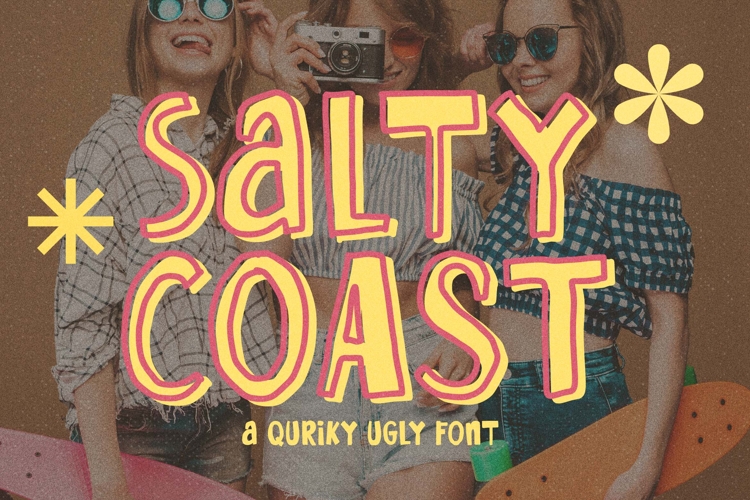
Salty Coast a Playful Ugly Font
Salty Coast a Playful Ugly Font is made for any professional project branding, such as logotype, watermarks, poster, branding, promotions, product packaging, etc. Every letter has a ugly style design. This font comes in Otf. and Ttf. files.
Salty Coast font includes a full set of ugly uppercase and lowercase letters, numerals and punctuation. This font has a ugly style. See the previews above to get some inspiration on how to use them. Happy designing!